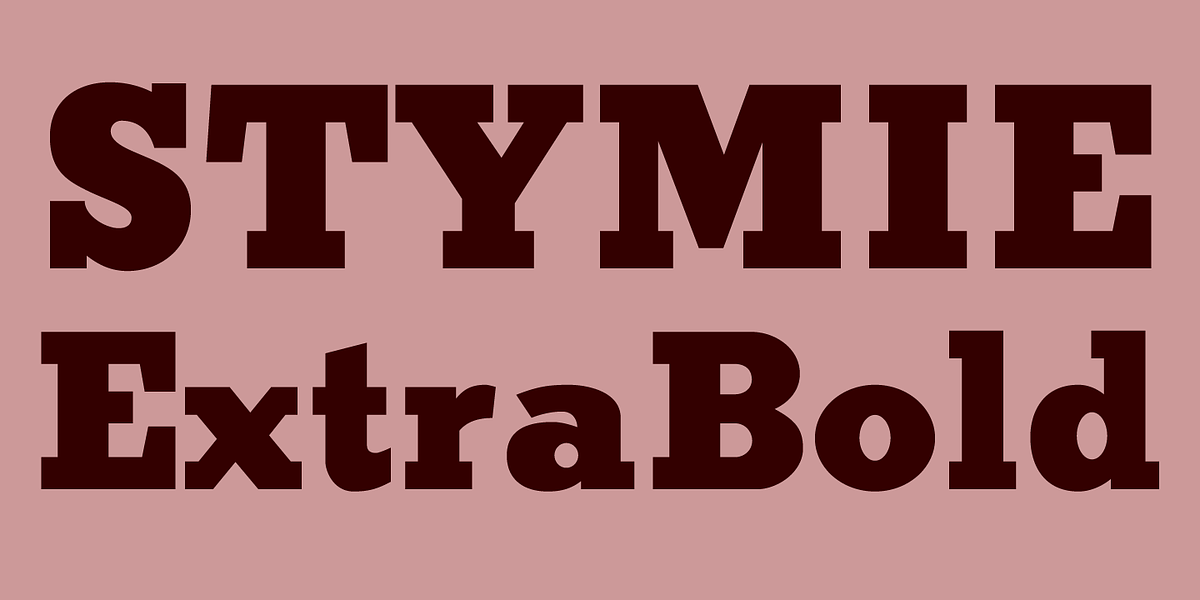
Stymie Extended Bold
This is a heavy, extra bold serif font with a distinct geometric appearance. Its design makes it well-suited for use in display applications such as headlines and posters.